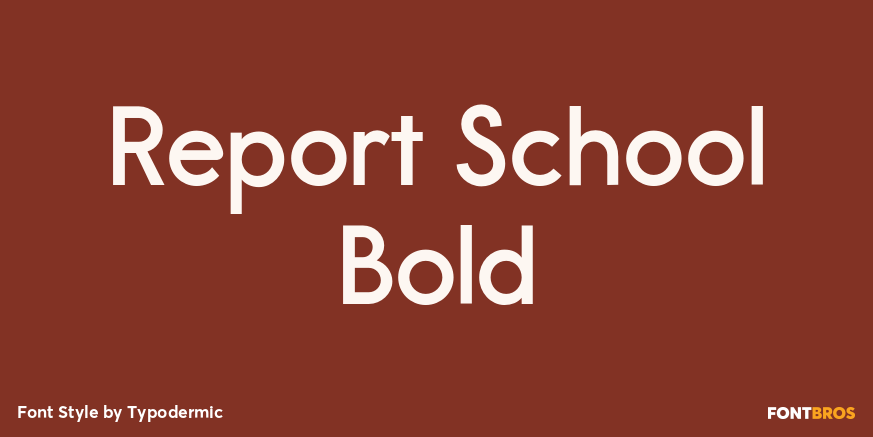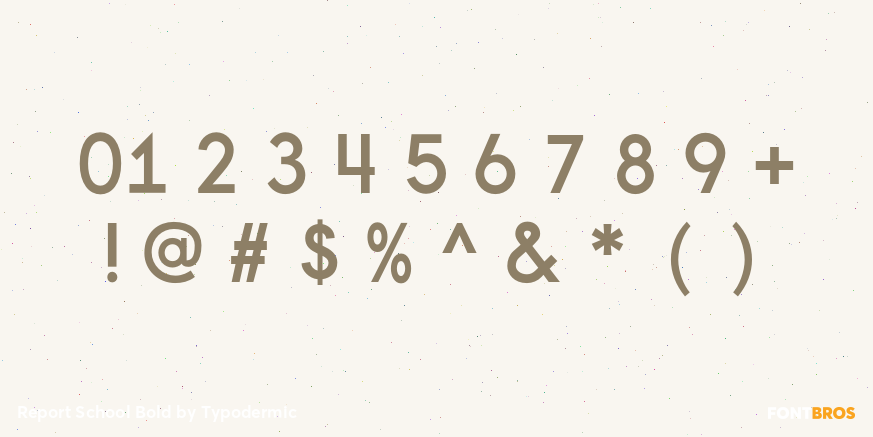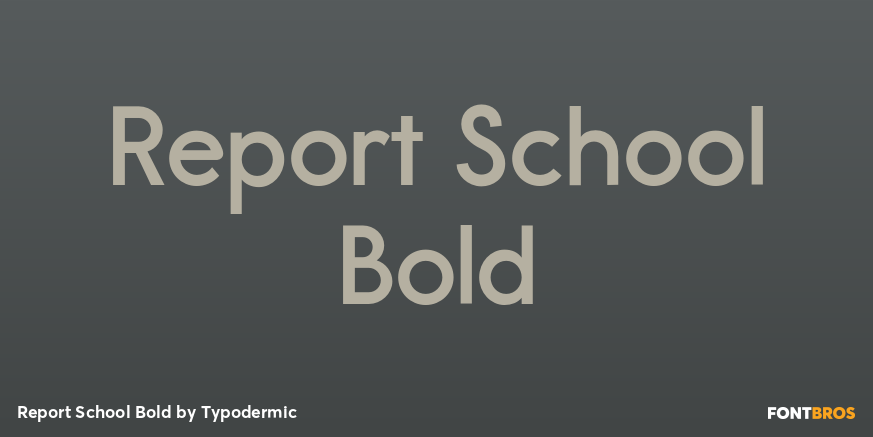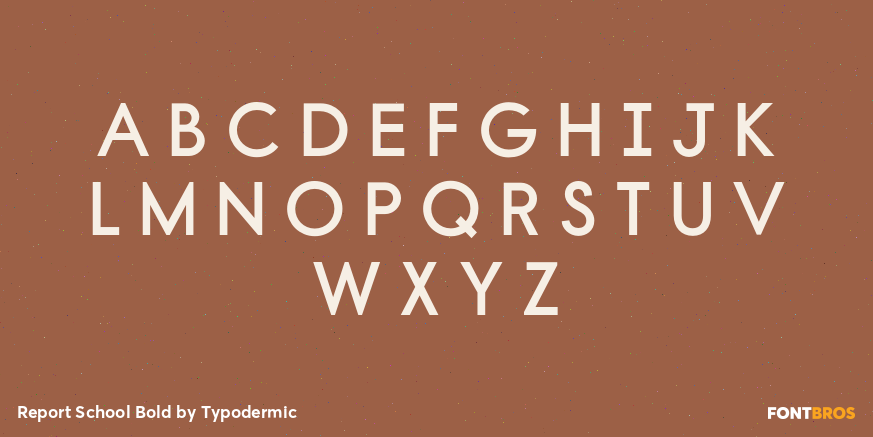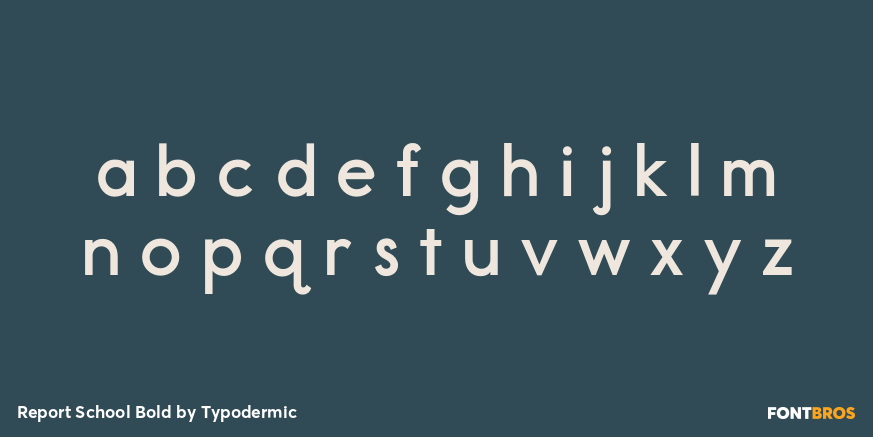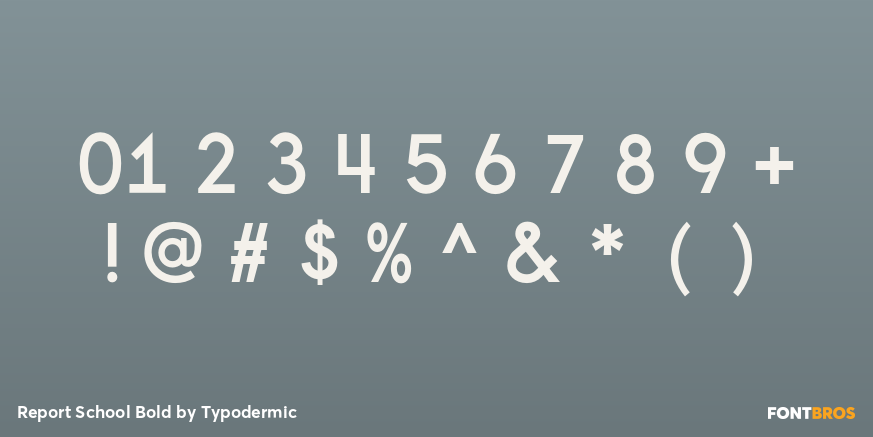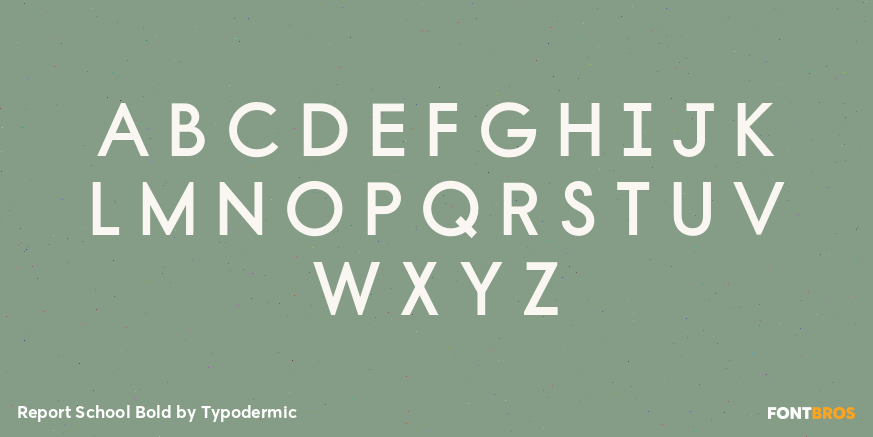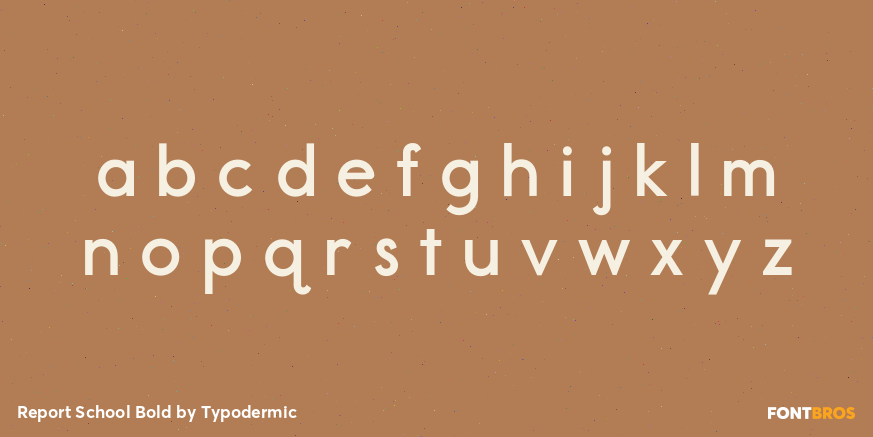
Report School Bold
Report School gives educational material a recognizable classroom flavor without making every page look like a beginning-reader primer. Its clear, approachable letterforms retain the sense that the typography was made for learners, while squared terminals give the design enough structure for subjects and age levels beyond early literacy.
That makes Report School particularly useful for textbooks, workbooks, and curriculum publishing. Elementary and middle-school math books, science textbooks, geography and social-studies material, language-learning books, classroom readers, revision guides, and supplementary curriculum series can use it for lesson titles, instructions, worked examples, captions, exercises, callouts, and short passages.
Workbooks are an especially natural fit. Math practice, spelling and grammar exercises, science activity sheets, homework packs, test-preparation material, and printable classroom resources all benefit from typography that visually belongs to schoolwork before the student has read a word.
Educational software extends the same advantage into the digital classroom. Digital textbooks, adaptive-learning systems, homework platforms, classroom quiz tools, online assessments, interactive exercises, AI-assisted tutoring, and curriculum apps can easily acquire the anonymous tone of general-purpose software. Report School can provide the learner-facing voice for lesson titles, questions, prompts, worked examples, exercise instructions, progress screens, and explanatory material while a more neutral interface face handles navigation and controls.
Math and science make particularly good use of the family’s tabular numerals, fractions, primes, and measurement-friendly details. Arithmetic exercises, geometry, lab activities, introductory physics, charts, diagrams, and worked calculations can retain Report School’s familiar educational character without making technical material feel cold or industrial.
The same qualities extend naturally into educational games, coding lessons, robotics, electronics, automotive service, construction technology, and other career or technical subjects. Report School makes learning material feel made for students without limiting it to beginning readers.
Report School Bold by Typodermic